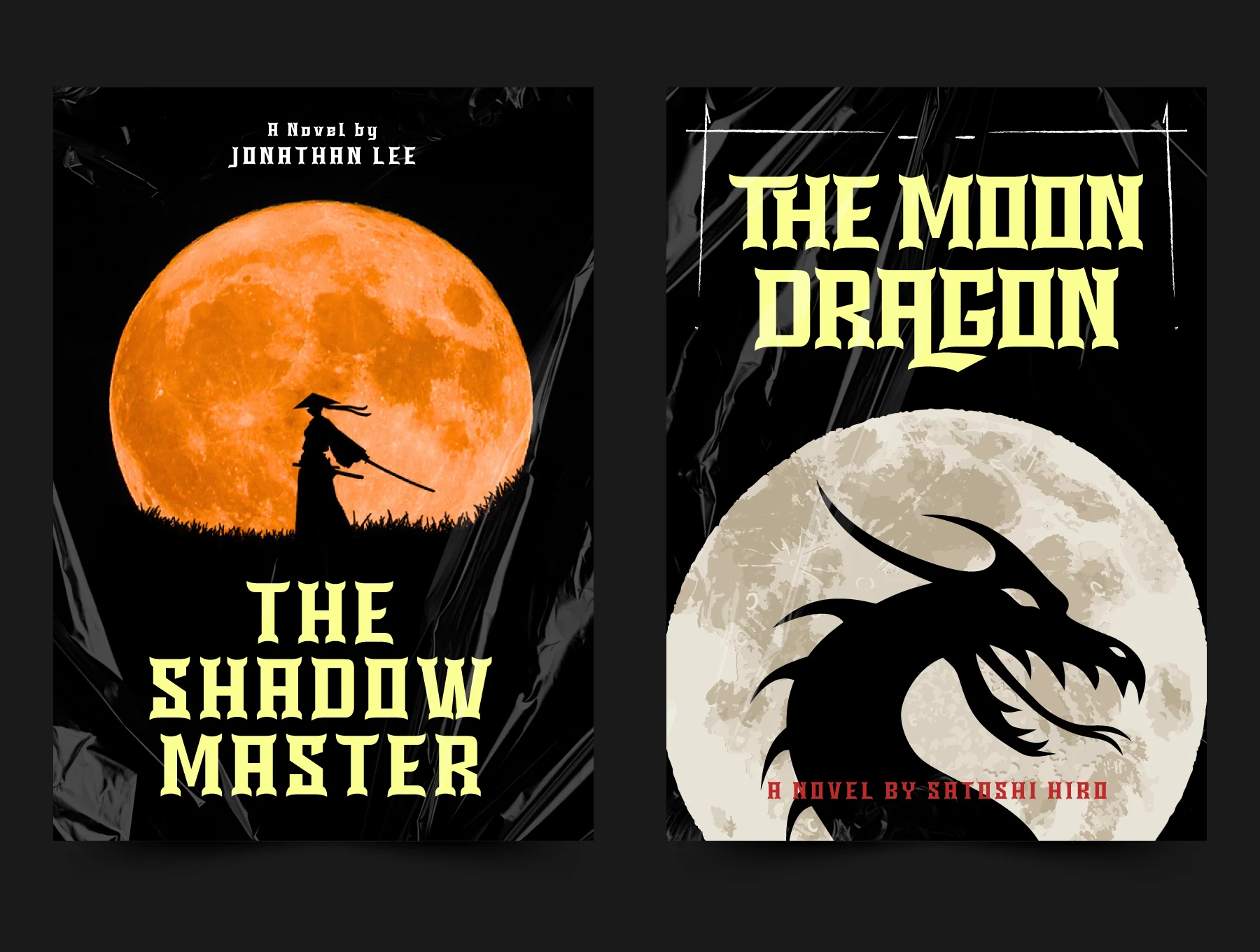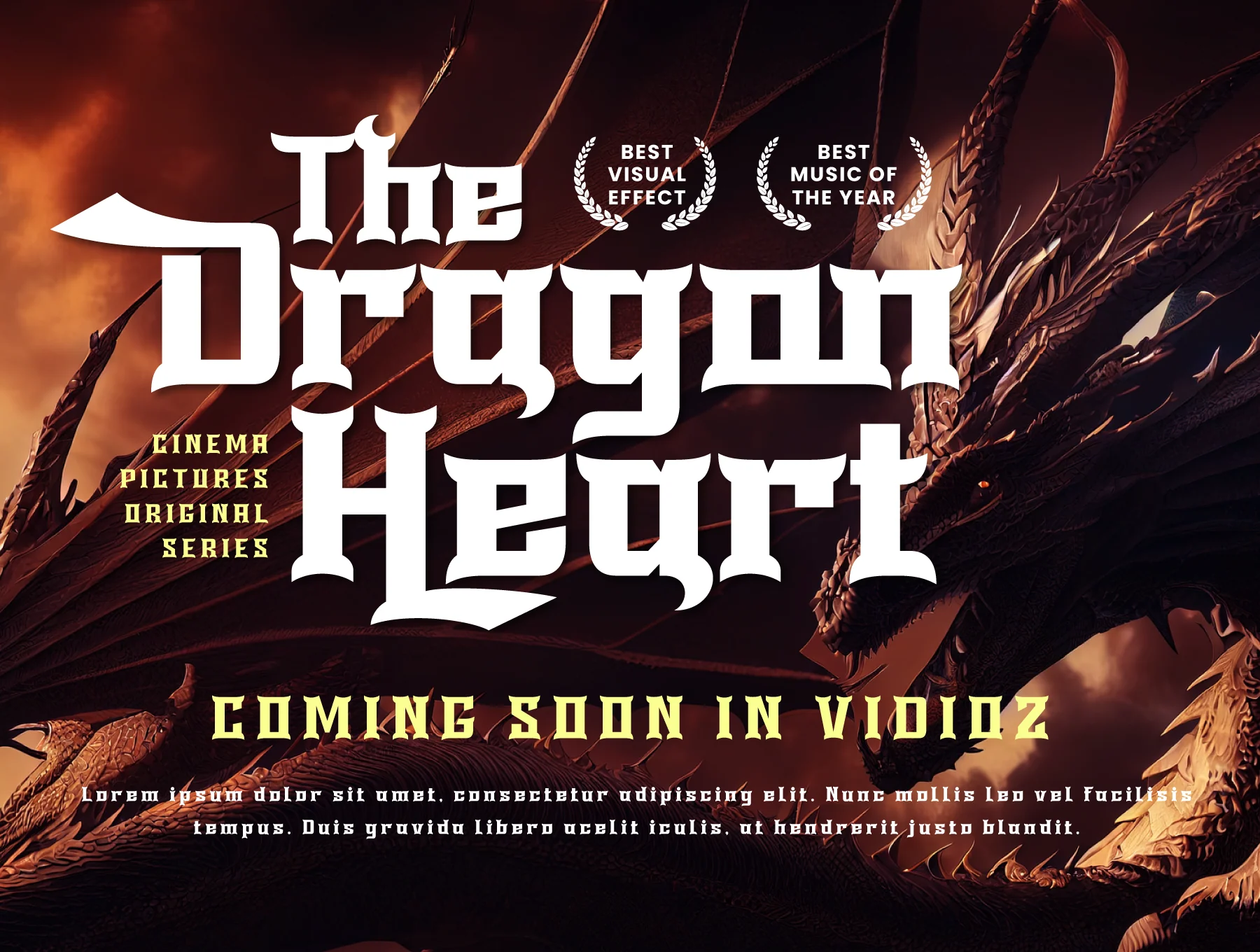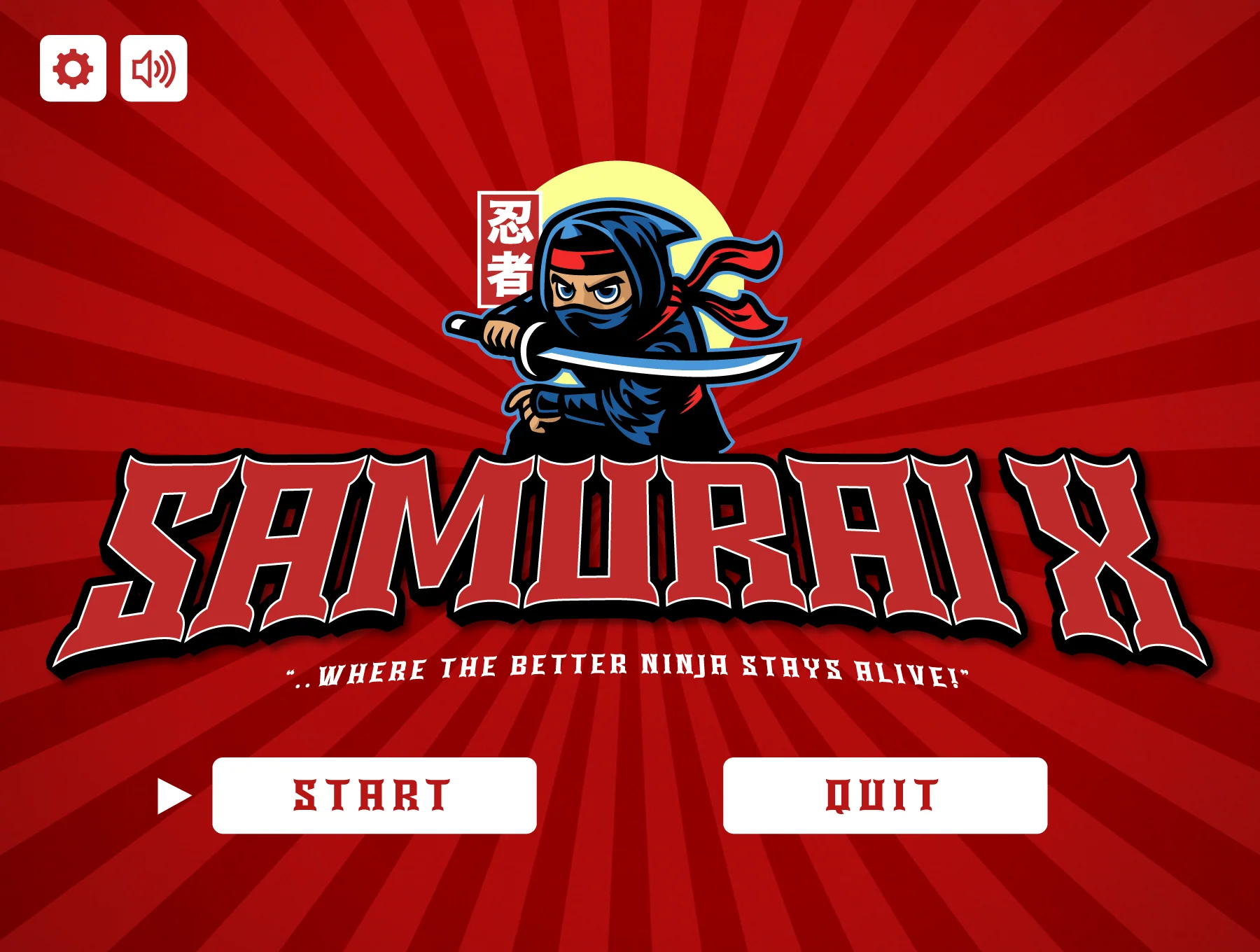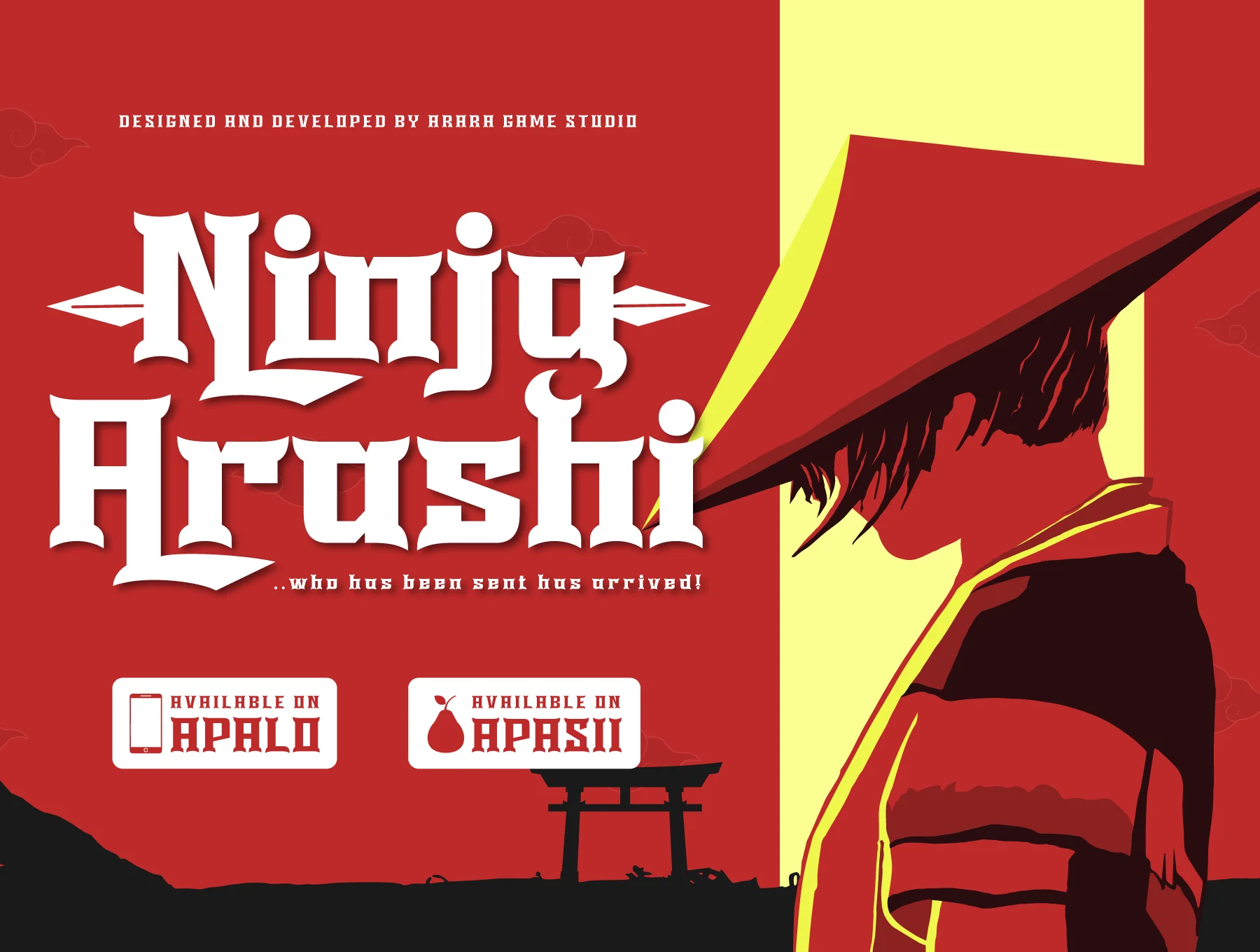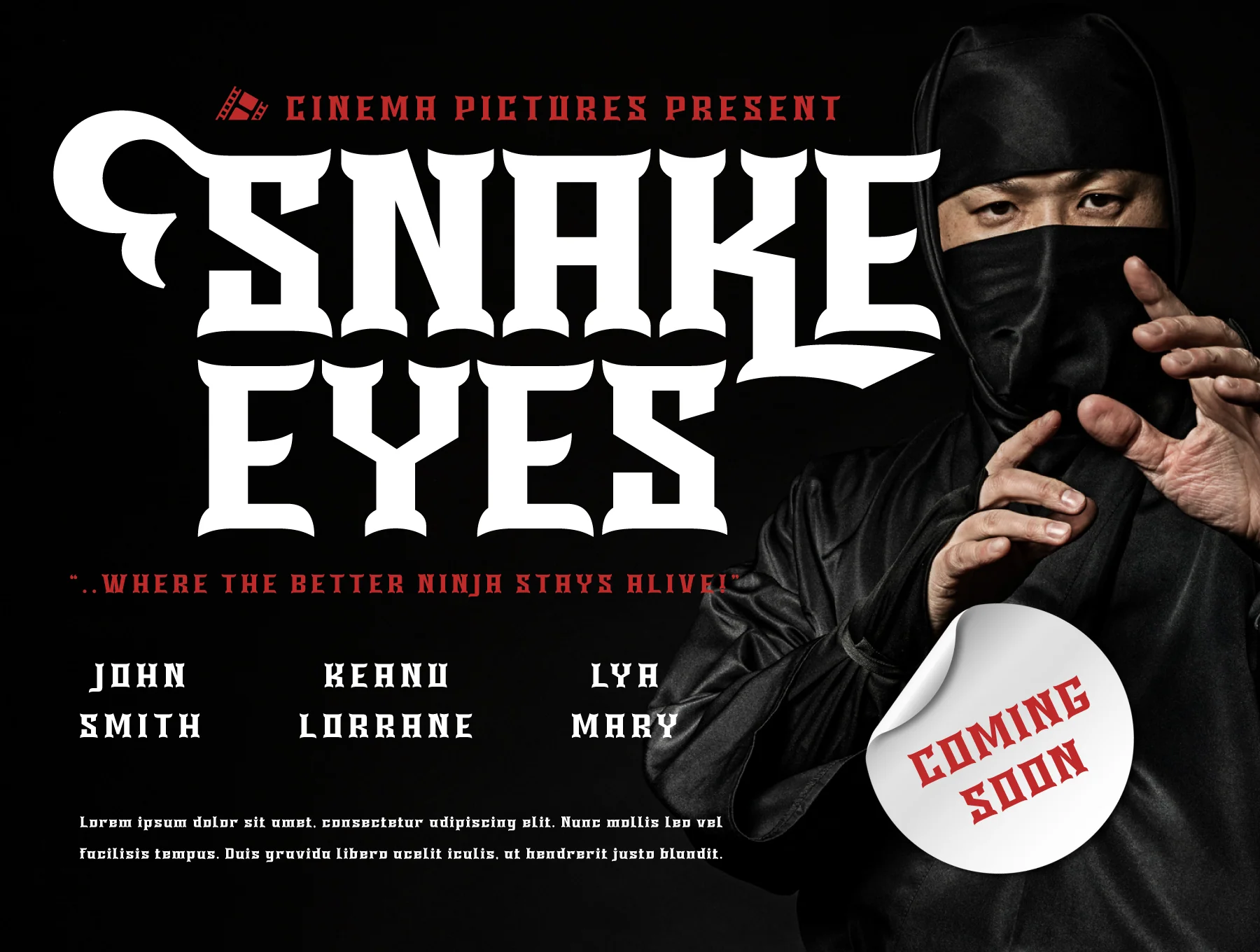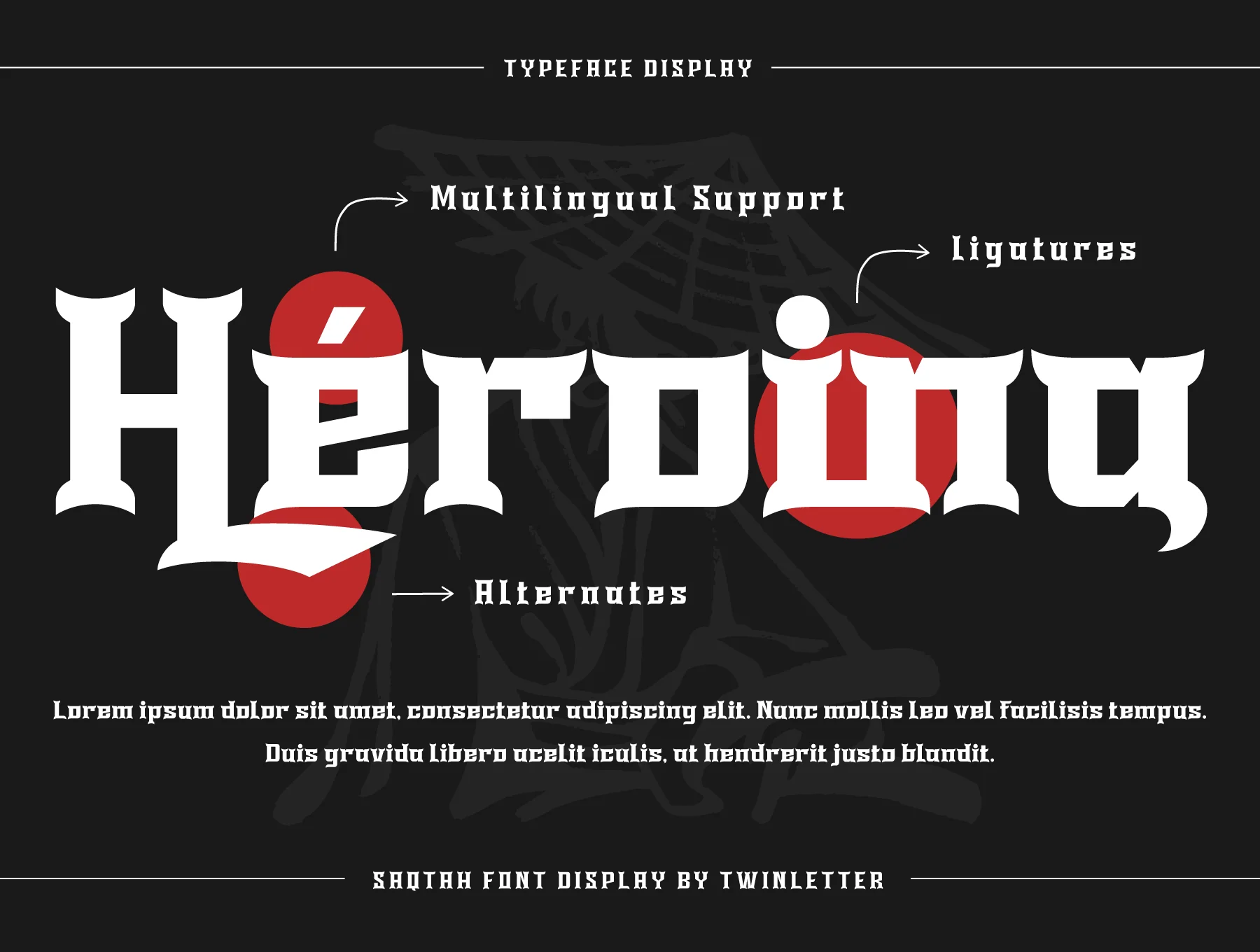
SAQTAH | Display Hero Font
Saqtah is a superhero-inspired display font that adds bold energy, bravery, and powerful character to your creative projects.
Complete ISO Latin-1 glyph set
Alternates and ligatures included
Saqtah is a bold superhero-inspired display font built for powerful films, games, and striking designs. Its heavy letterforms create a commanding visual impact, while alternates, ligatures, PUA encoding, and multilingual support add creative flexibility. Includes OTF, TTF, WOFF, WOFF2, CSS, HTML, ISO Latin 1 glyphs, and easy installation.